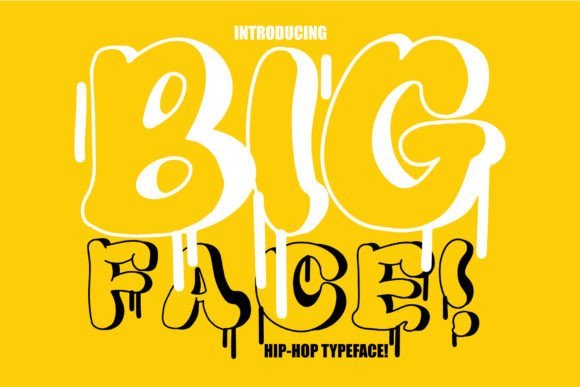
Introduction to Big Face! Font
Big Face.
is a cool, bubbly, graffiti-style display font It embodies playfulness and authenticity and is the perfect choice for any children’s activity or school project.
Big Face! Font offers exceptional quality and versatility, making it a valuable addition to your design toolkit. Whether you’re creating for personal projects or commercial use, Big Face! Font delivers professional results.